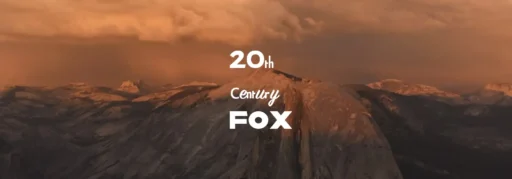
20th Century Fox Font
20th Century Fox Font is a bold cinematic typeface inspired by the iconic film studio logo. Its strong, geometric letterforms capture the drama and grandeur of classic Hollywood, making it a perfect choice for posters, titles, and designs that need a powerful on-screen presence.
Where 20th Century Fox Font works best
20th Century Fox Font keeps its shape at 14 and 16 pixels, which is where interface text actually lives. Numbers and capitals stay distinguishable in tables.
Presentations are read at a distance; a clean sans with a strong bold is the safest hierarchy you can build in a hurry.
Simple letterforms survive angles, glare and movement, so 20th Century Fox Font suits door signs, menus boards and exhibition panels.
What kind of work does 20th Century Fox Font suit?
It sits in the Sans Serif Fonts group and reads as bold, branding, classic, geometric. That makes it a candidate wherever those qualities help: headings, packaging, social graphics and brand work. Set it at the size you plan to use before deciding.